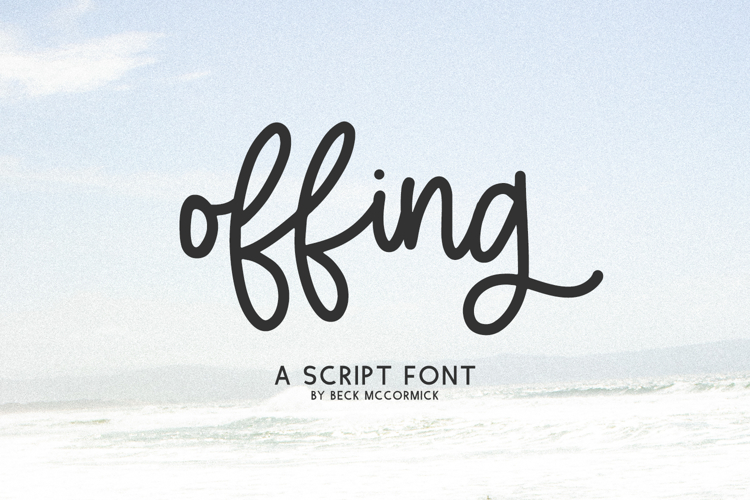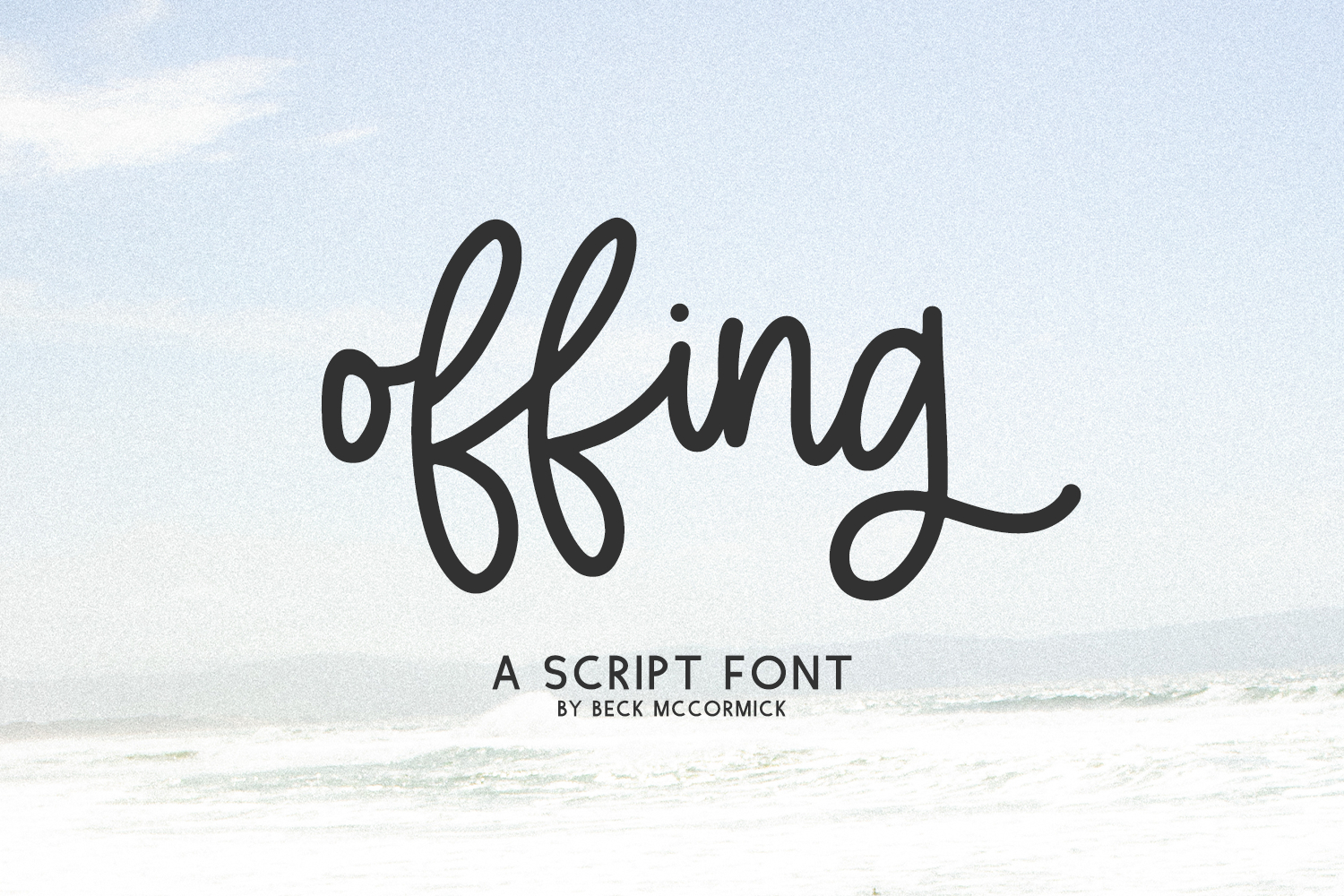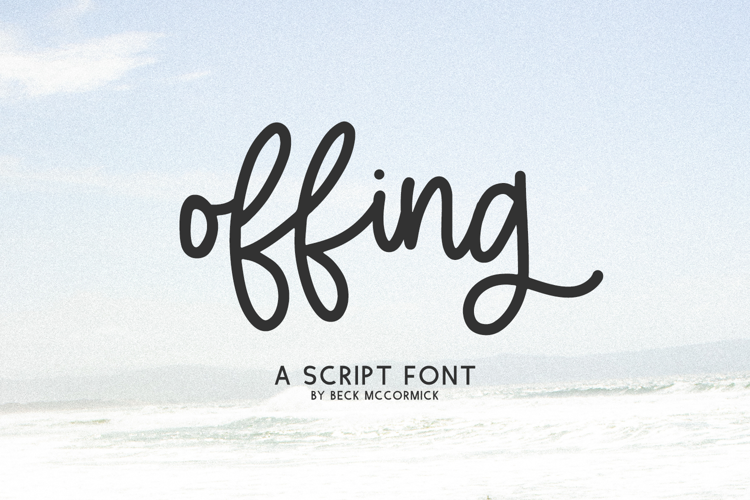
Offing Script
Introducing Offing, a monoline modern calligraphy font with alternates & ligatures. Offing will add a sweet, feminine touch to your project.
- 26 alternates
- 15 ligatures - da, er, ff, ia, ic, ir, ll, mm, nn, oo, or, rr, ss, tt, wr